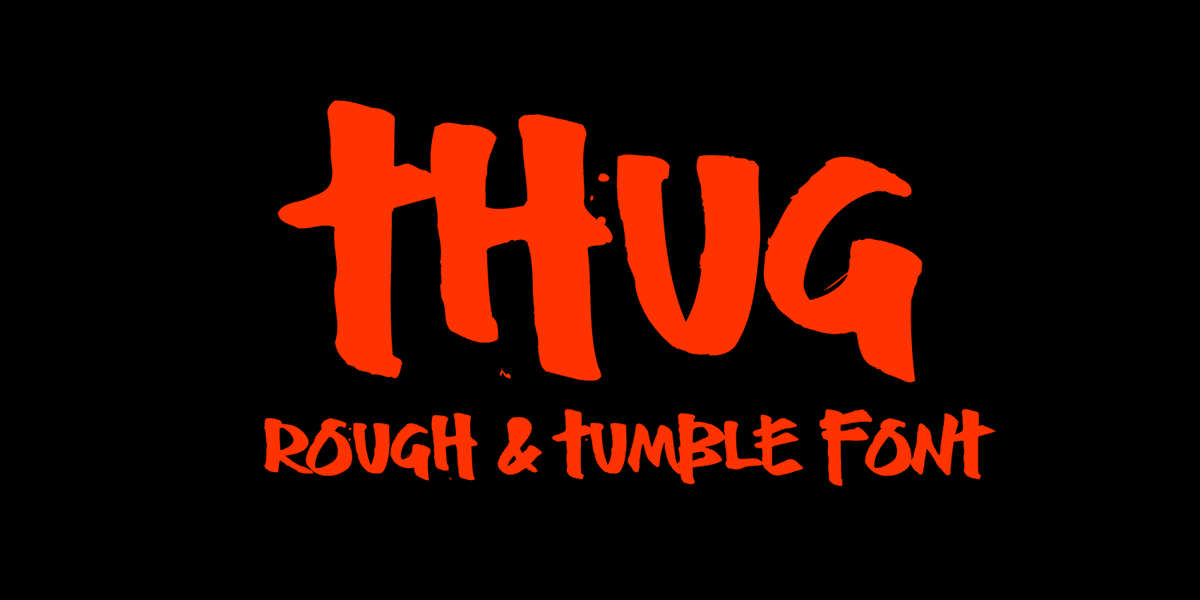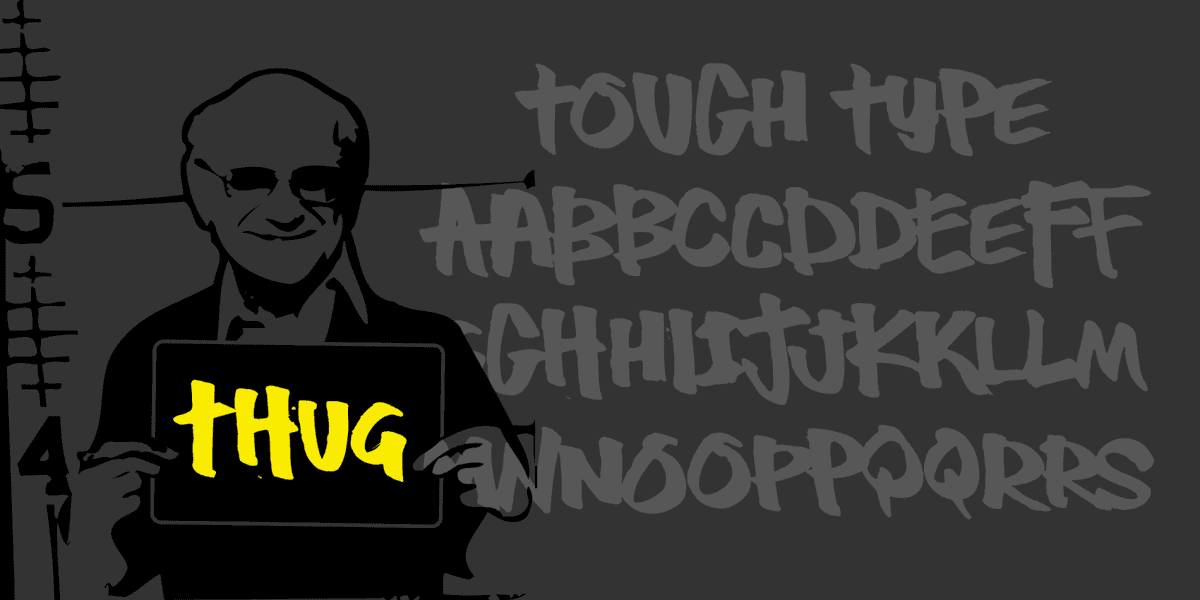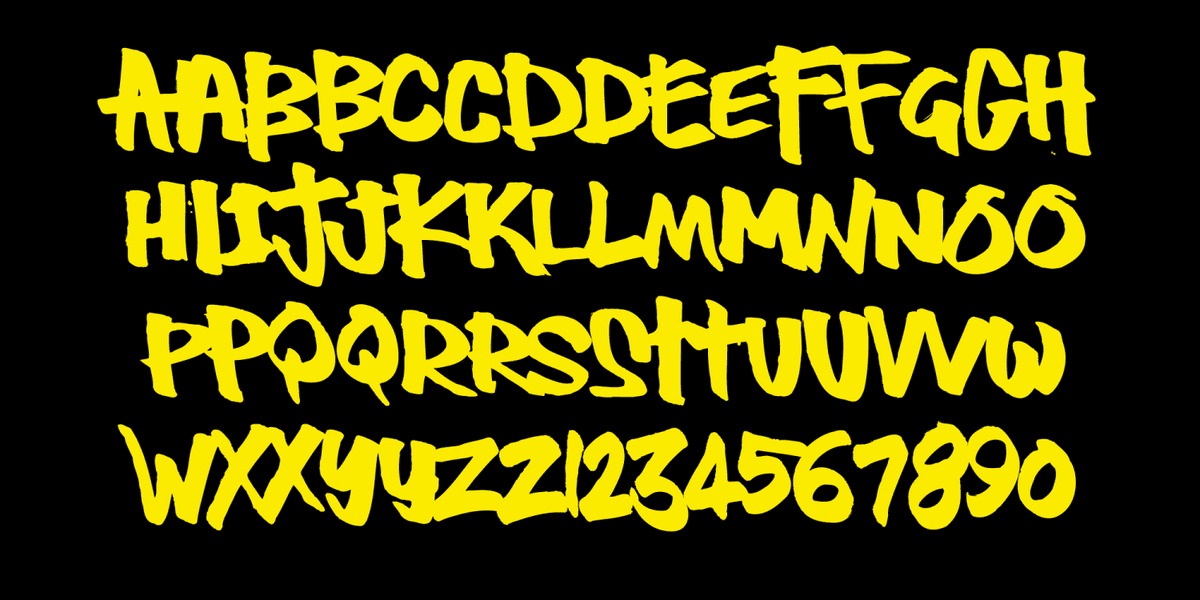
BOO-YAA! Thick mofockey straight out da street creepin' into your computer, foolio! Represent with Thug and people will know you got beef wif da system and you 'bout to roll up. Use this font on your resume and ain't no way that trick ass Human Resources dept. gonna play you out!! Next thing you know, it'll be just you & Lorenzo, rollin' in the Benzo.